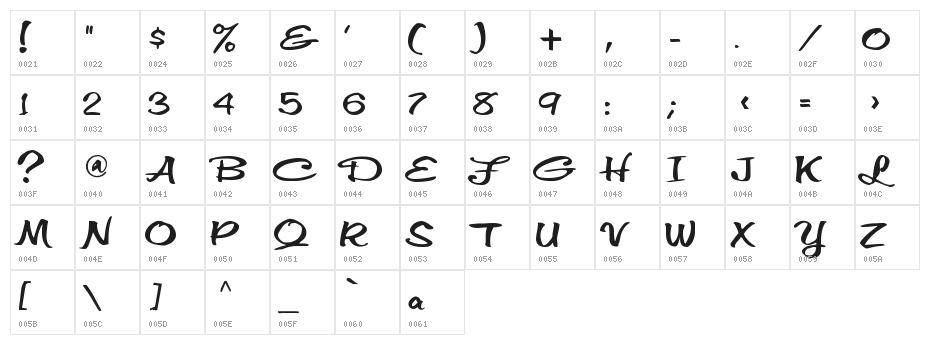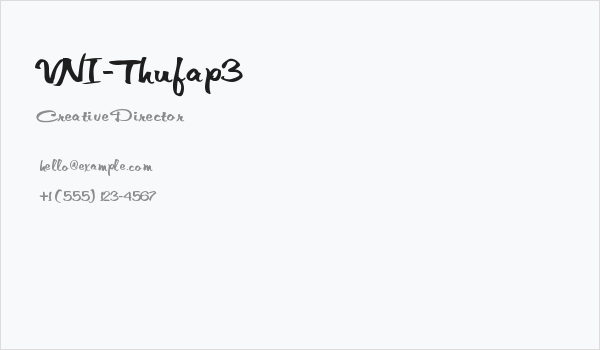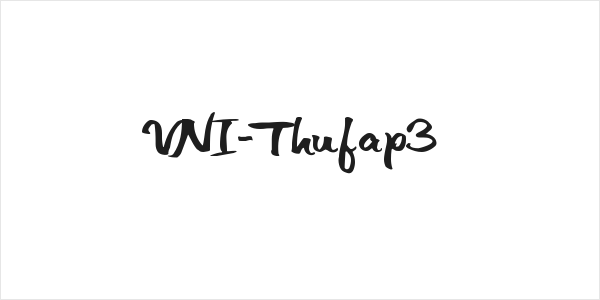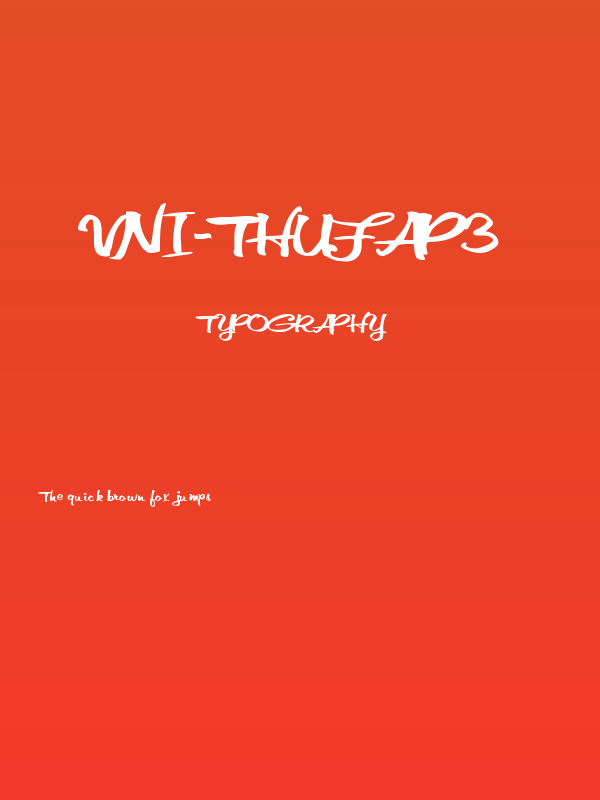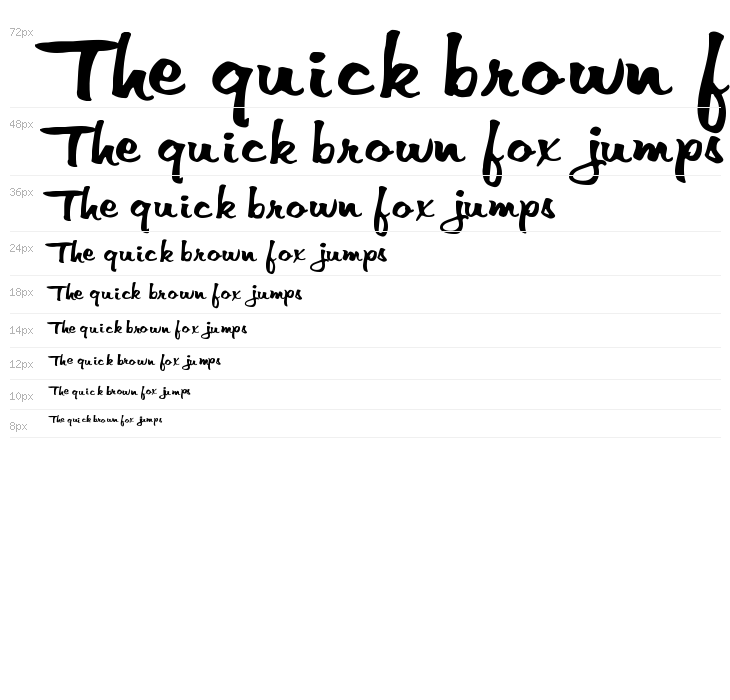
VNI-Thufap3 Font
VNI-Thufap3 Description
This font features a bold and dynamic script style, characterized by its flowing and interconnected letterforms. The uppercase letters exhibit a sense of movement with their sweeping curves and sharp edges, while the lowercase letters maintain a consistent fluidity that enhances readability. The numbers are bold and slightly exaggerated, adding to the overall expressive nature of the font. Special characters are uniquely styled to match the energetic theme, making them stand out. The font's design is both artistic and functional, suitable for a variety of creative applications.
| Proposed Projects | Ideal for branding, logo design, invitations, and artistic projects requiring a personal touch. |